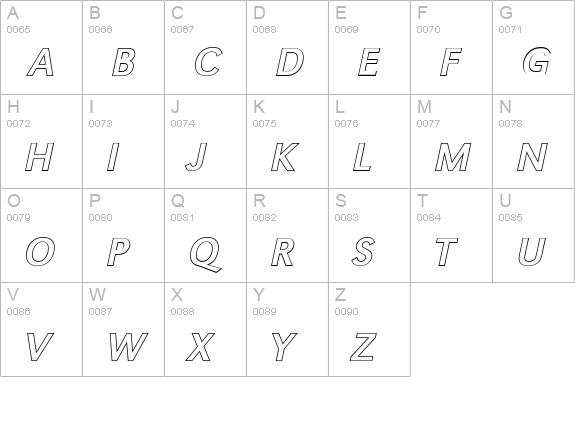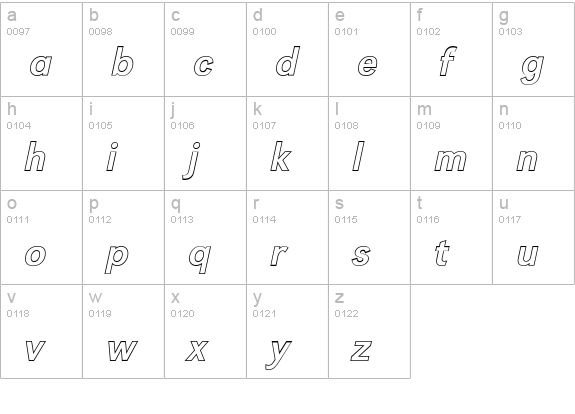
GroteskOu-Italic is a distinctive, italic variant in the GroteskOu typeface family \xE2\x80\x94 well suited to design and typography projects.
GroteskOu-Italic font is a stunning typeface that exudes elegance and modernity. Its sleek and sophisticated design makes it perfect for a wide range of projects, from branding to editorial design. The italic style adds a touch of flair and personality to any text, making it stand out beautifully. What's even better is that GroteskOu-Italic font is completely free to use! Yes, you heard that right - this gorgeous typeface is available for free download at FontsMarket.com. So go ahead and elevate your designs with GroteskOu-Italic font, without worrying about any costs. Embrace the beauty of this font and let your creativity soar with its unique charm and versatility. Download it now and start creating stunning designs that will leave a lasting impression.